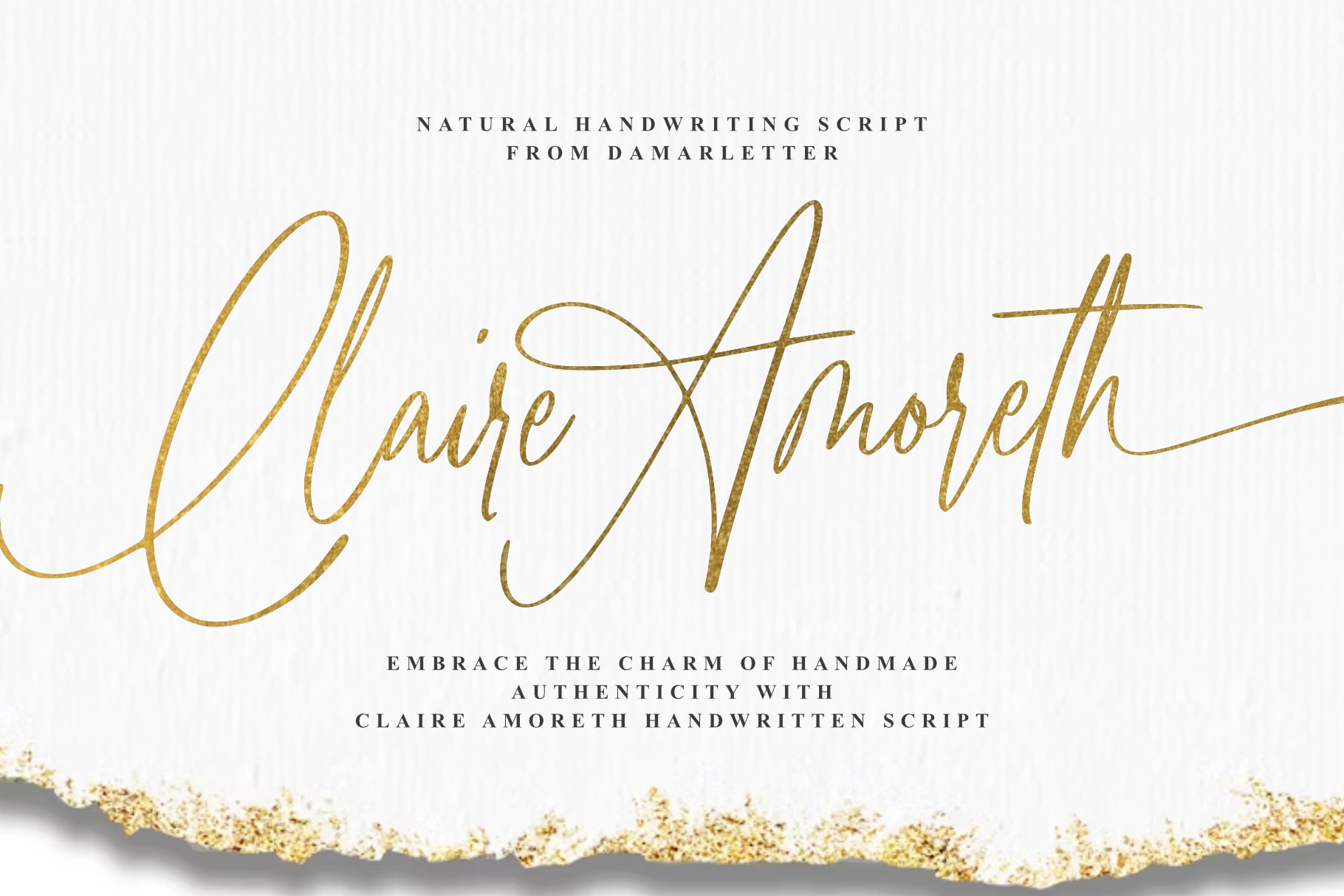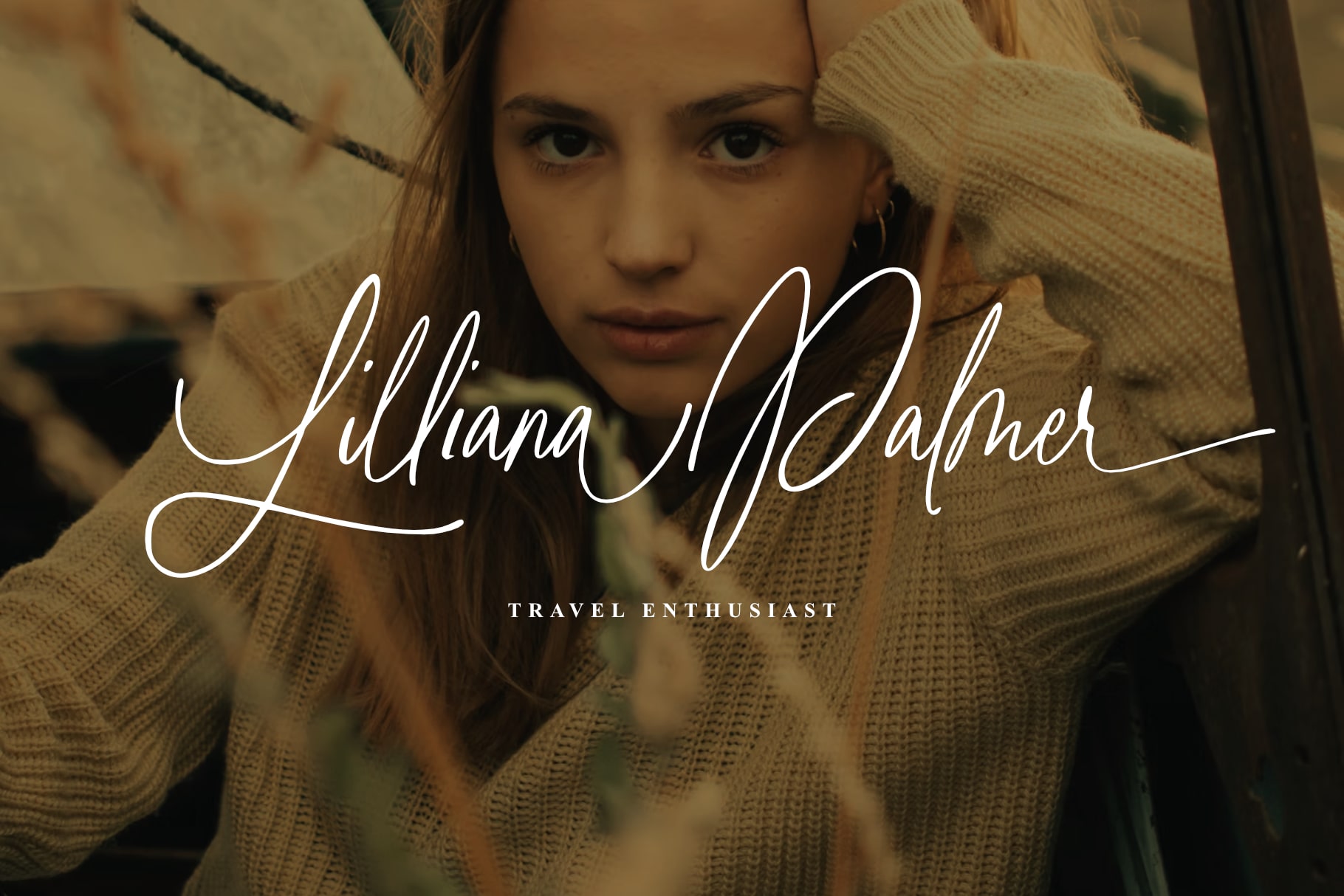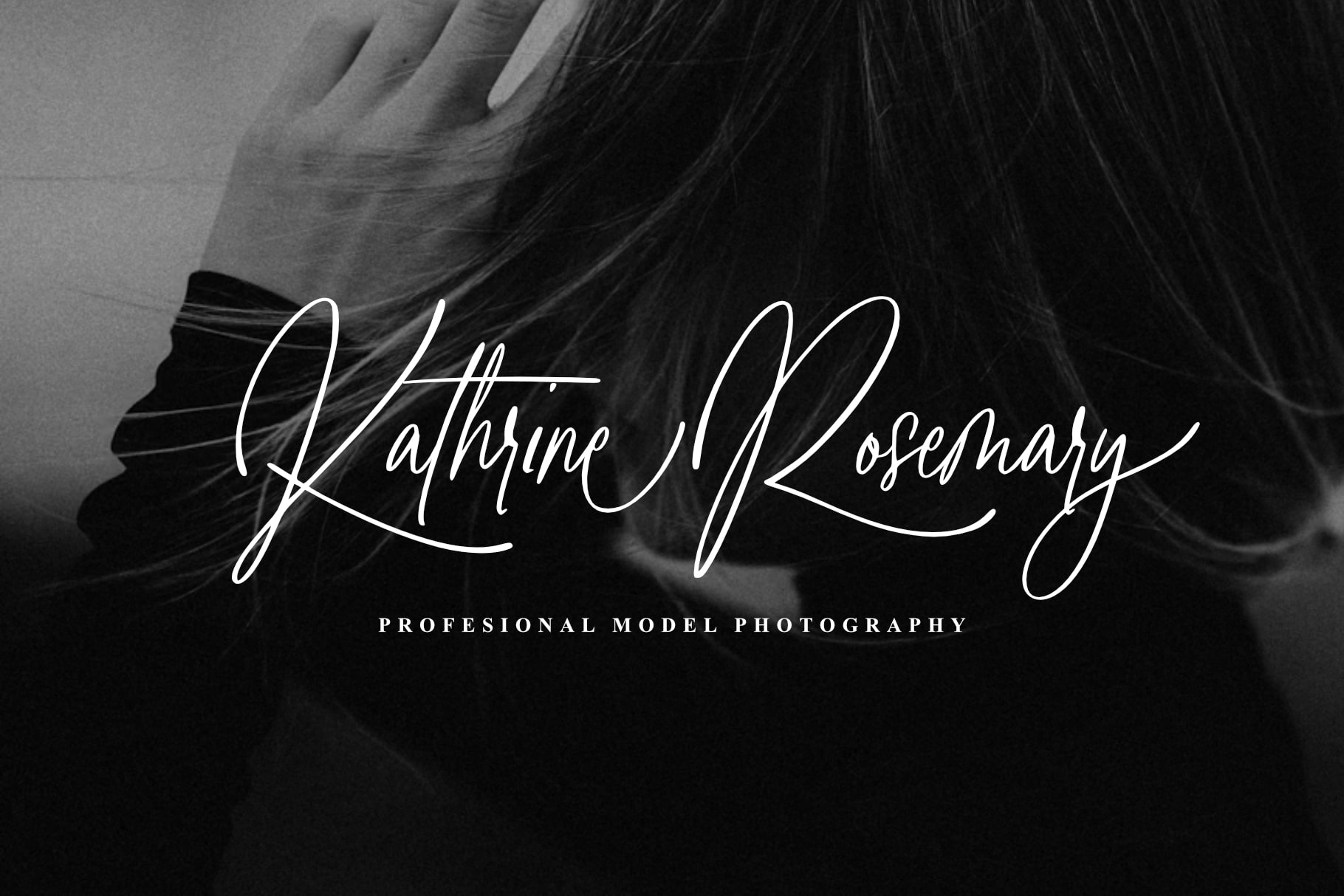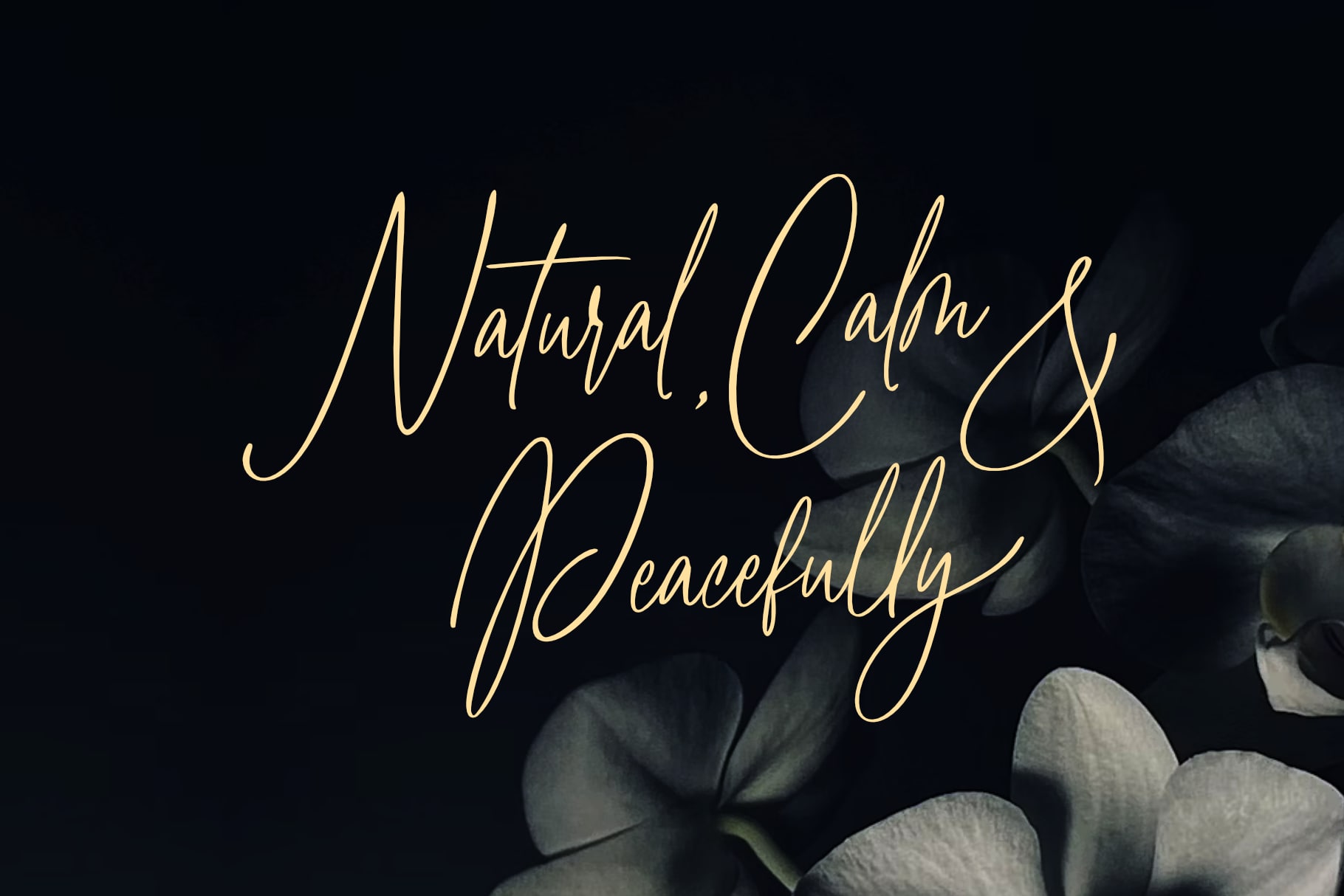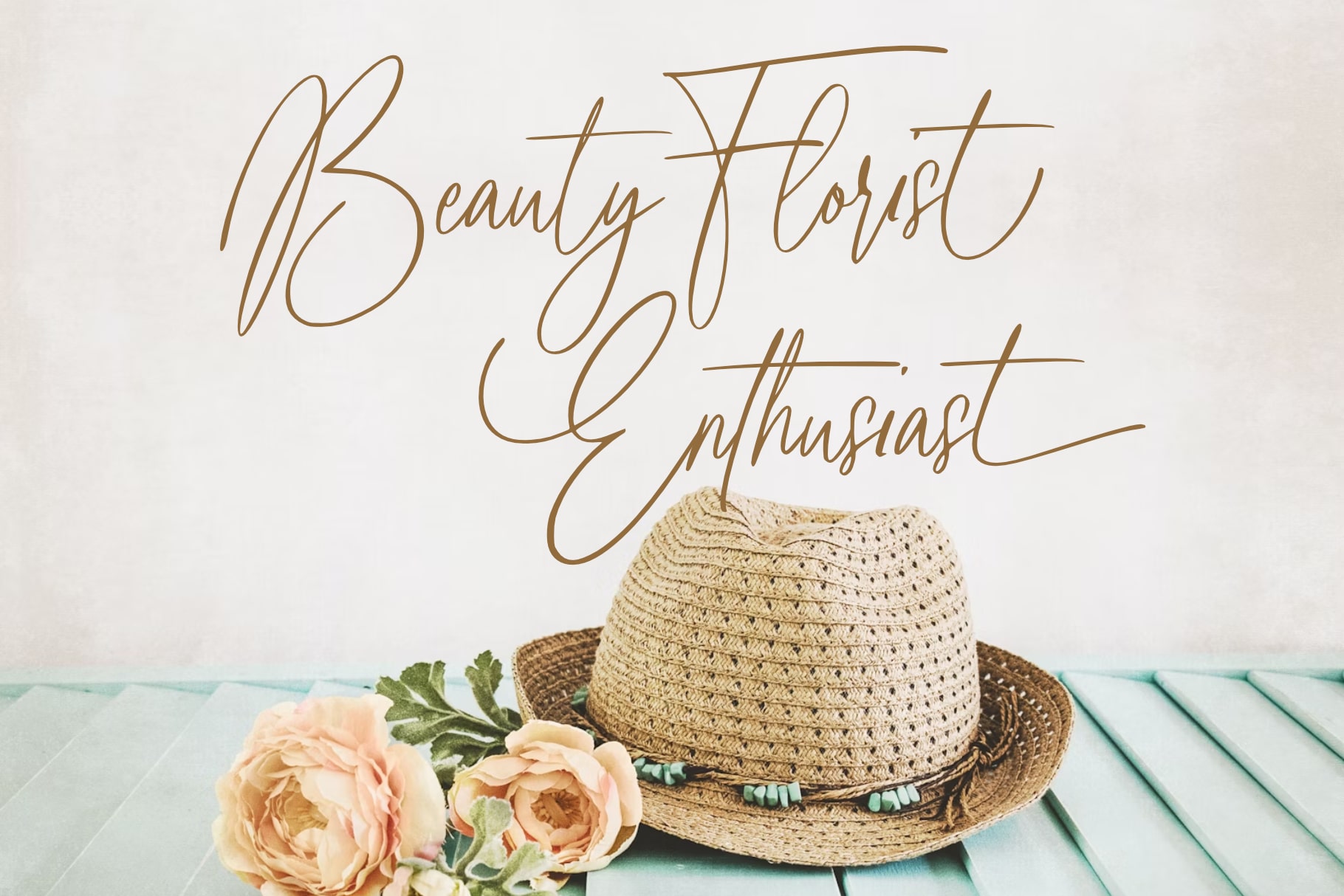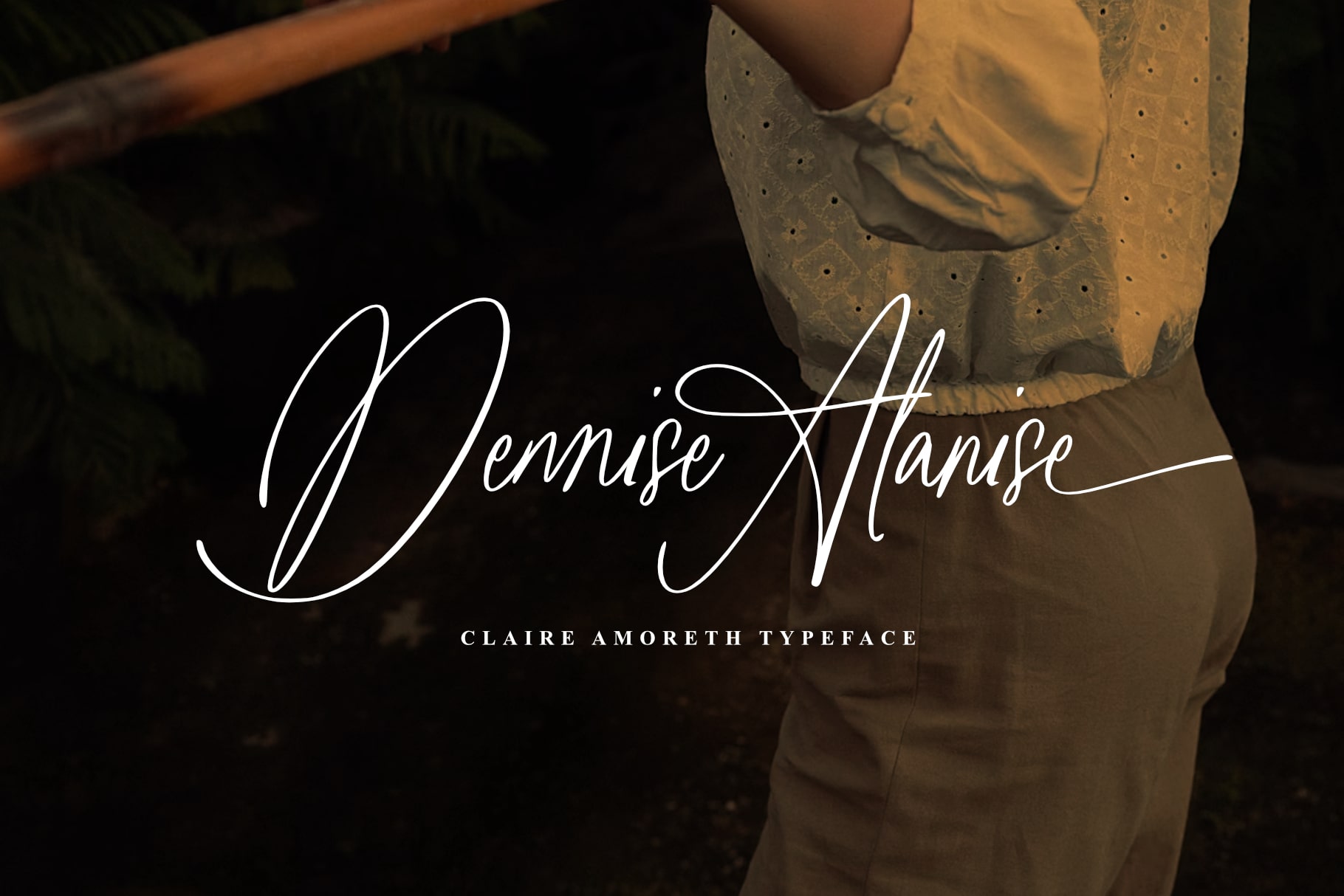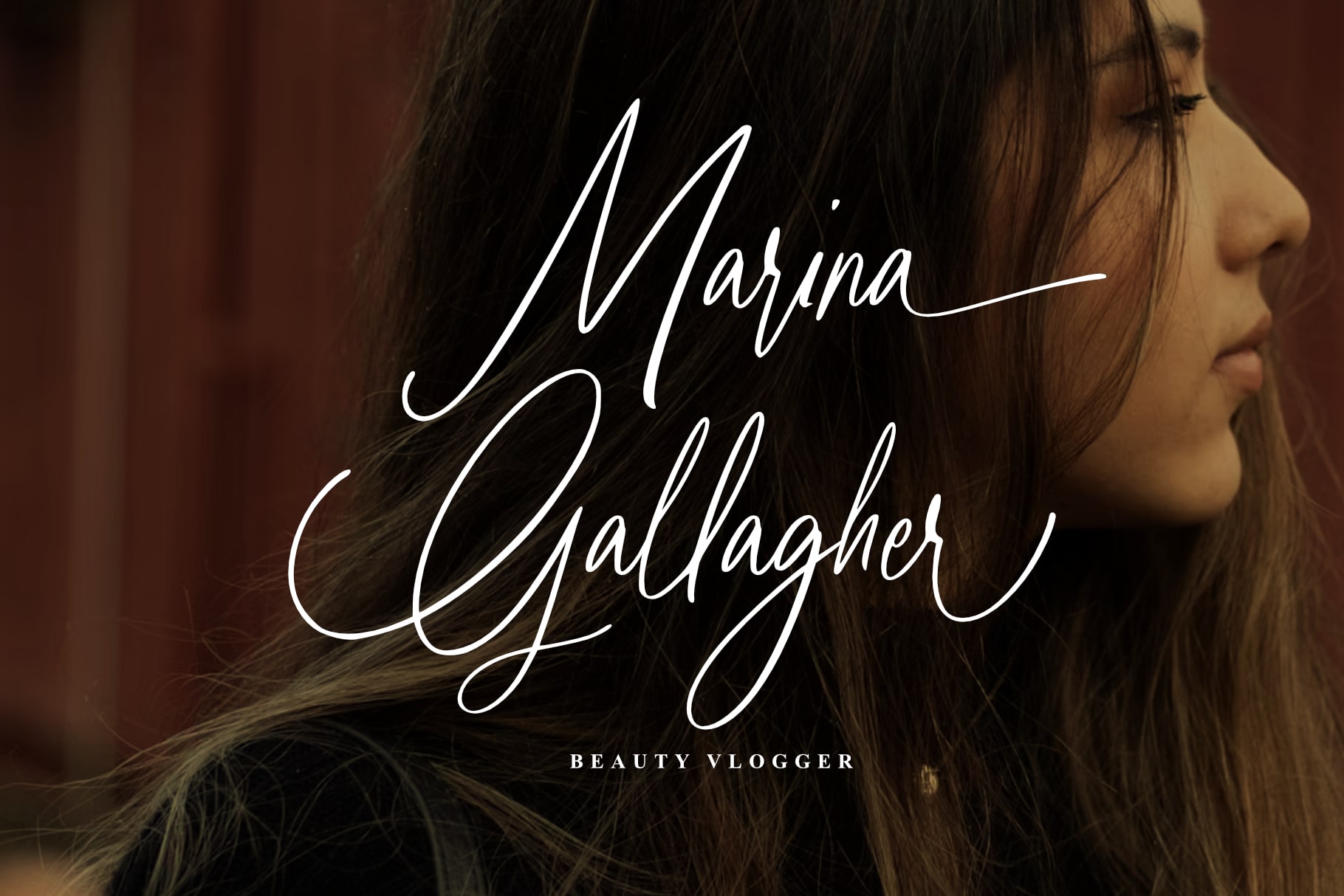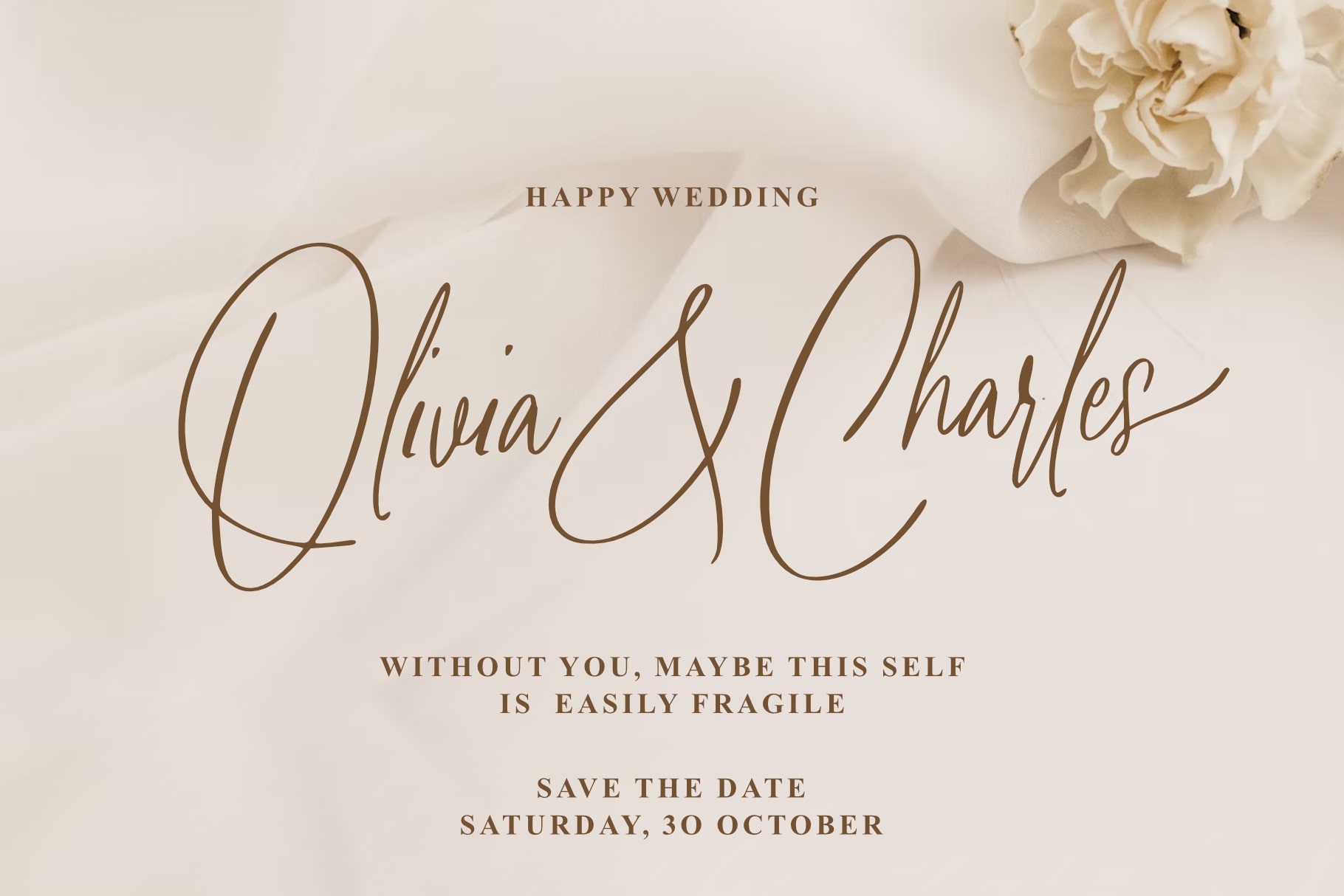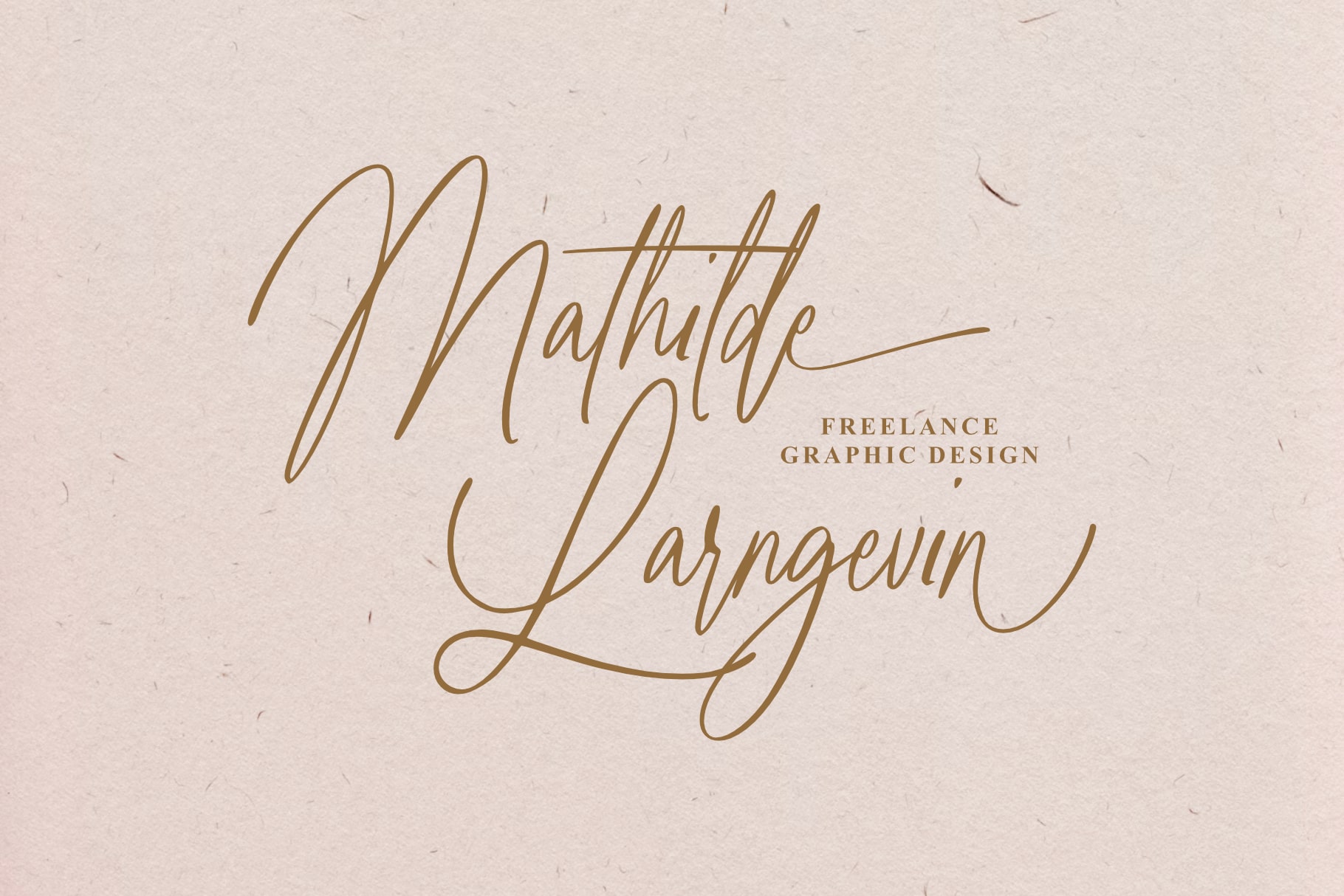
Claire Amoreth Handwritten Script
Introducing Claire Amoreth, a captivating handwritten script font that beautifully embodies the allure of natural, free-flowing script. Its elegant curves and organic lines infuse an authentic and personal flair into your designs. Ideal for projects that call for a mix of sophistication and casual charm, Claire Amoreth stands as a preferred choice for achieving that cozy handwritten aesthetic. Born out of the art of calligraphy, Claire Amoreth wields a perfect synergy of understated elegance and refinement. Its adaptability caters to a spectrum of uses, covering everything from wedding invitations and sentimental notes, to brand logos and design projects. The fluid and delicate character of Claire Amoreth translates into an expressive and cohesive script, turning every written word into a miniature masterpiece. Experience the allure of handcrafted genuineness, and enrich your designs with the enduring elegance of Claire Amoreth handwritten script font.